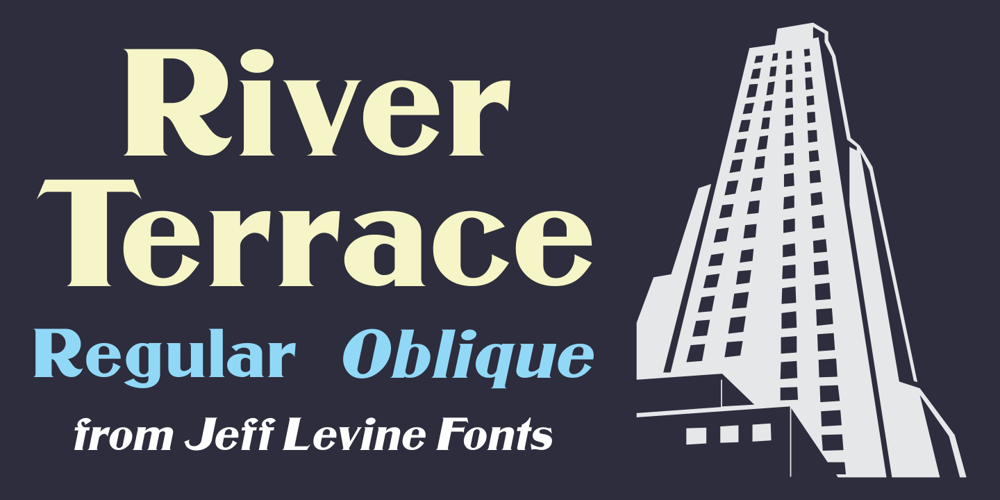
River Terrace JNL Font Family was designed by Jeff Levine and published by Jeff Levine. River Terrace JNL contains 2 styles and family package options. “Corbitt” is one of the many designs found within the pages of the 1907 Inland Type Foundry specimen book. A bold spurred serif with Art Nouveau influences, it is now available digitally as River Terrace JNL in both regular and oblique versions.